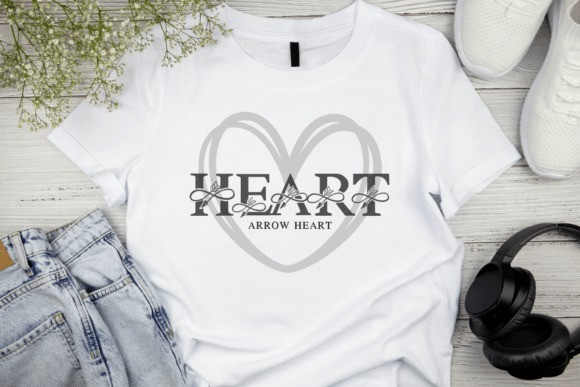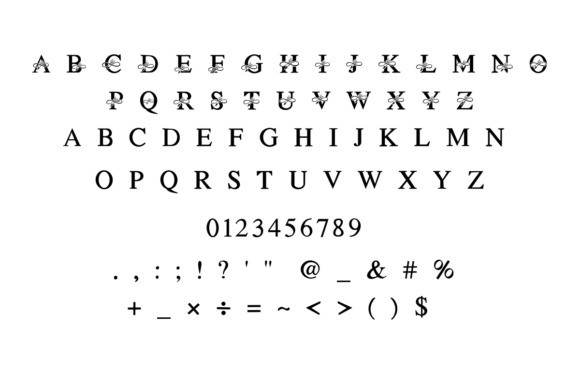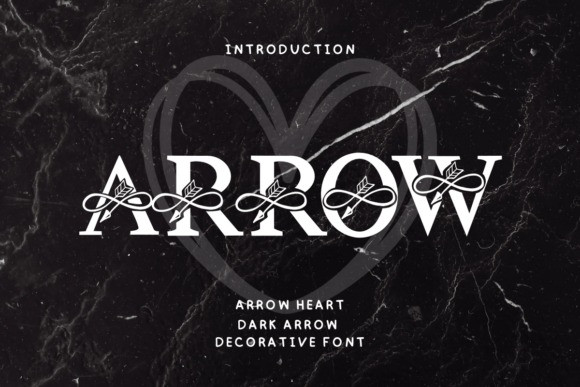
Arrow Heart Font
Arrow Heart font! A beautiful decorative typography that is perfect for capturing your thoughts and moments in notes or diaries. Its charismatic charm makes it a splendid choice for designing heartfelt greeting cards. Yet, its versatility stretches beyond just these, as ArrowHeart effortlessly enhances the appeal of diverse mediums – from captivating banners and passionate content to daily essentials like mugs and t-shirts. Let your stationery make a statement or let your social media posts stand out with the unique breath of creativity that the Arrow Heart font lends to your designs.